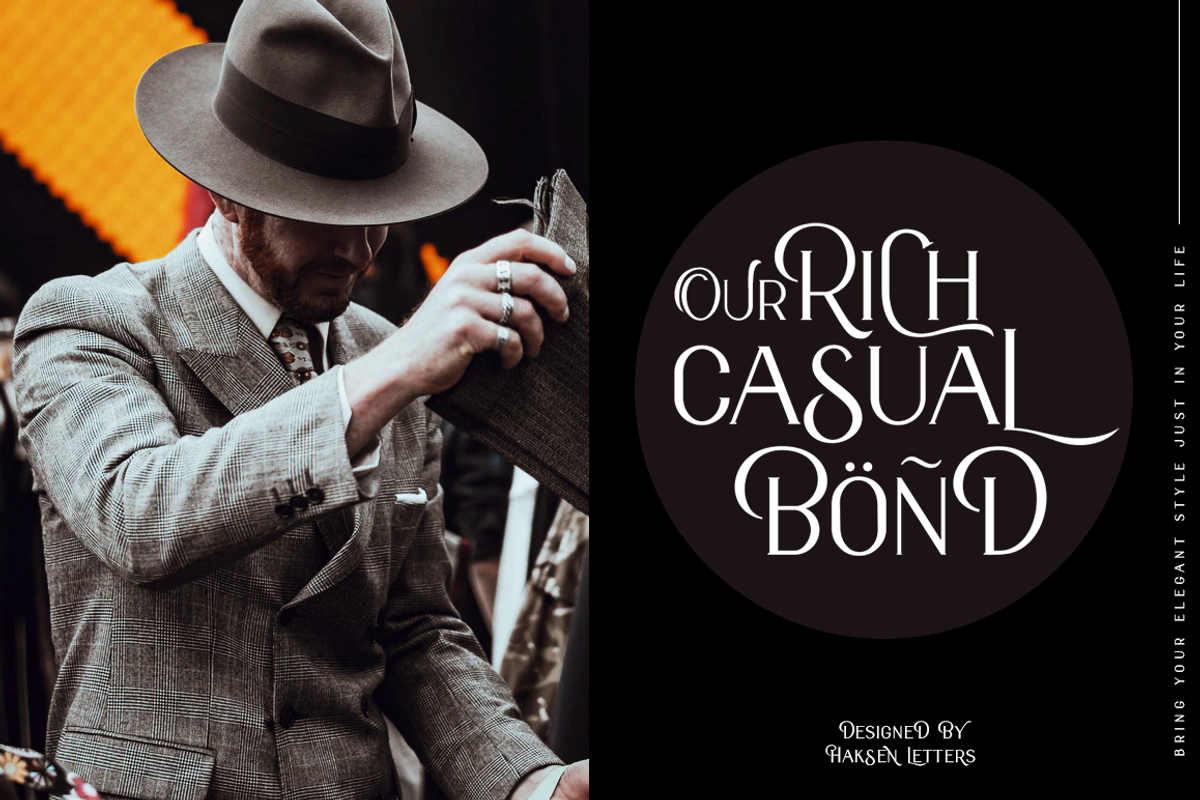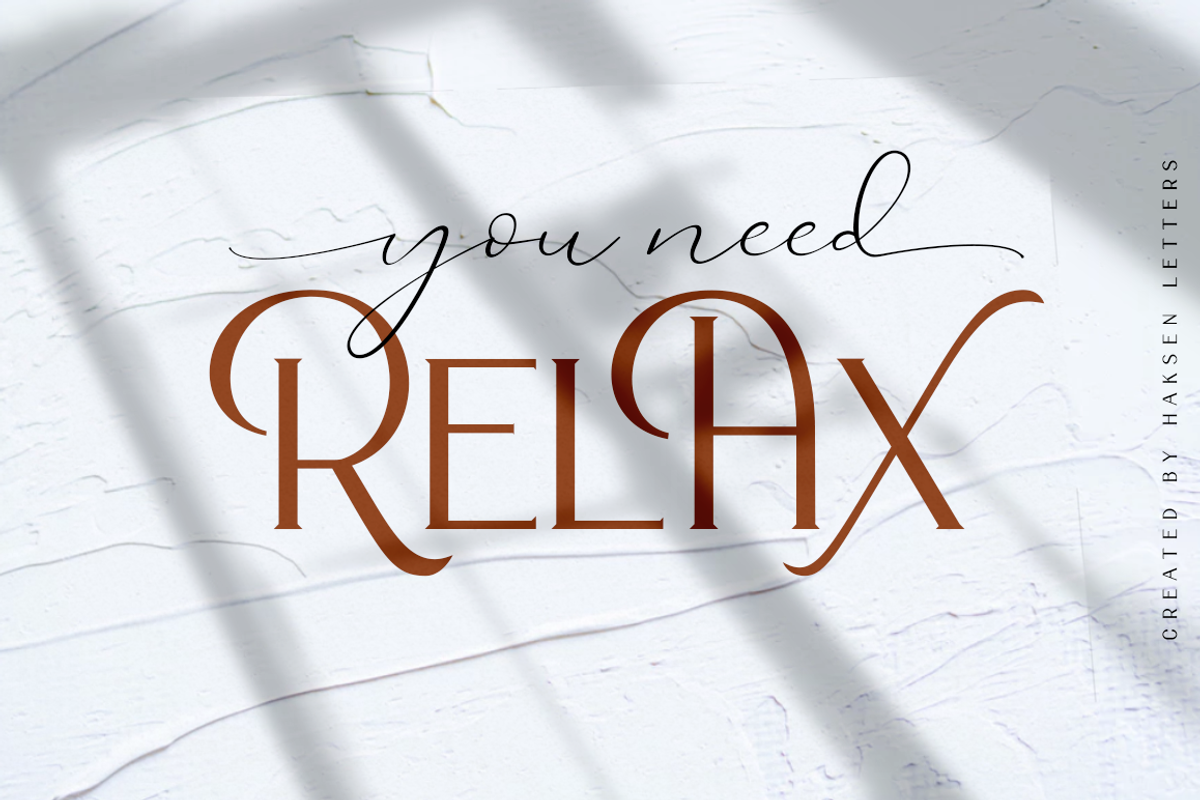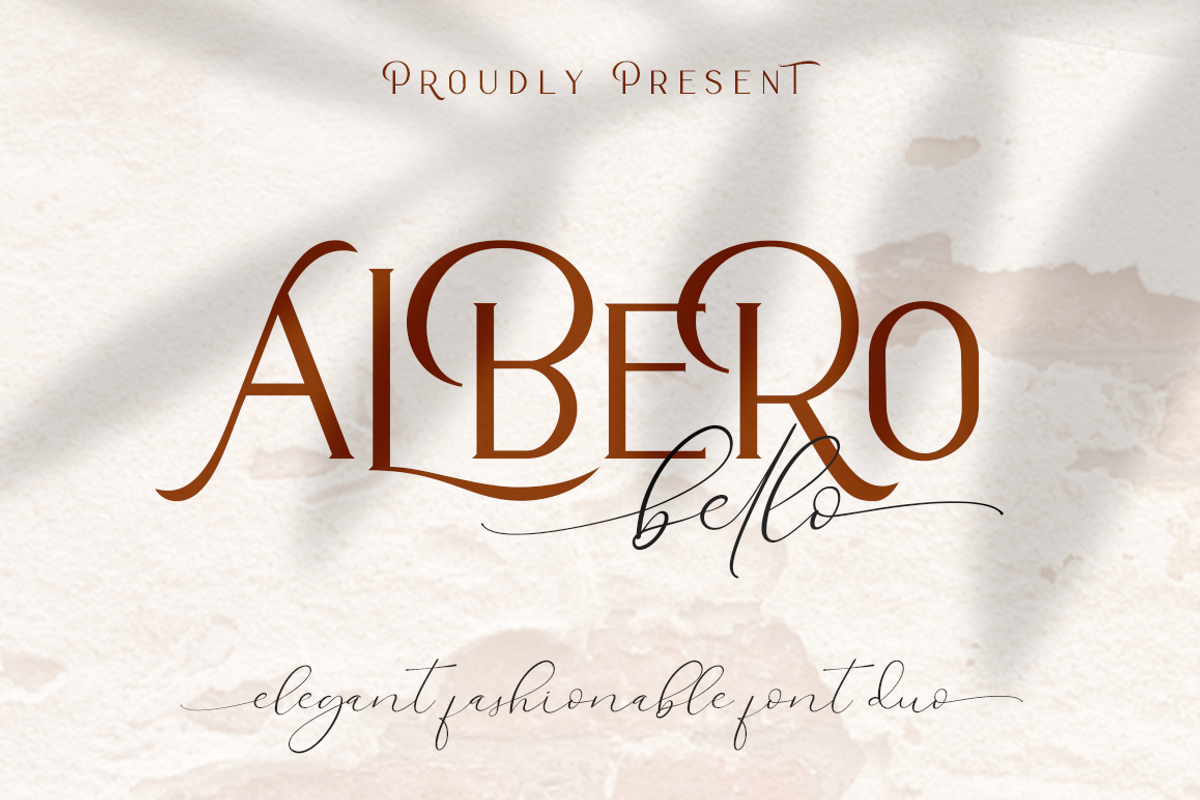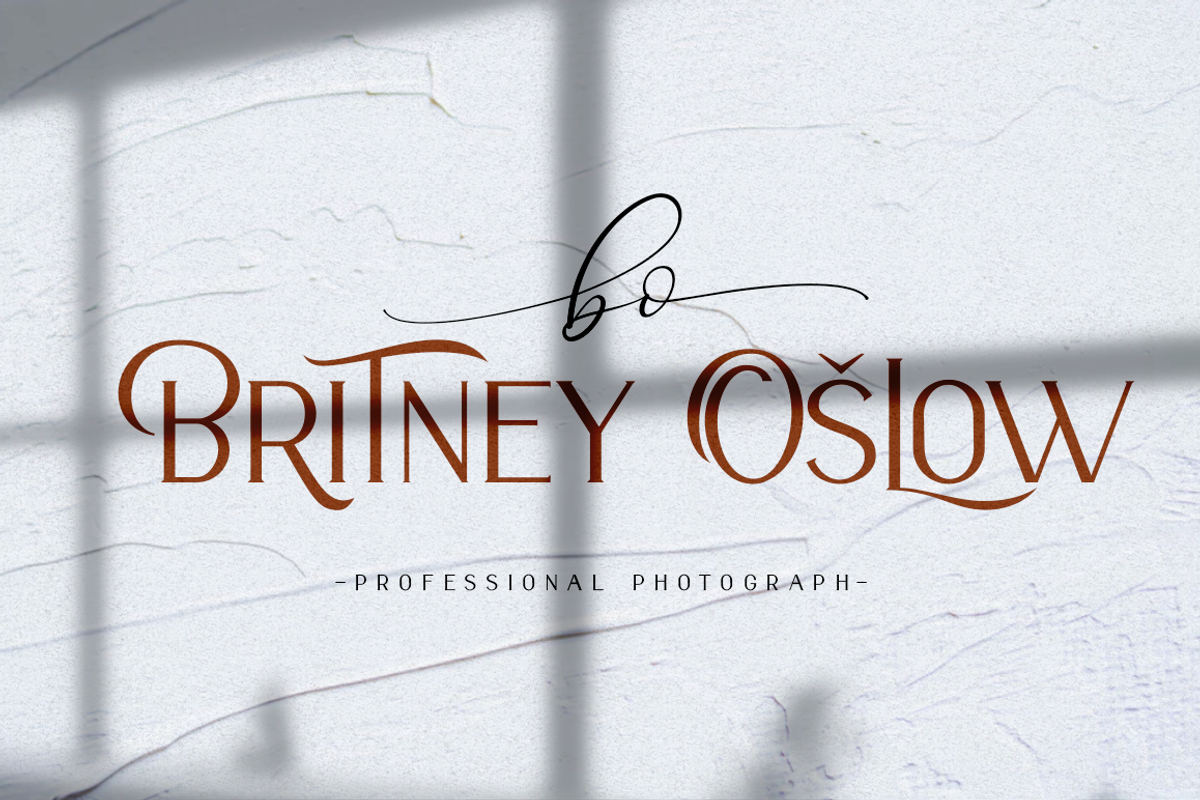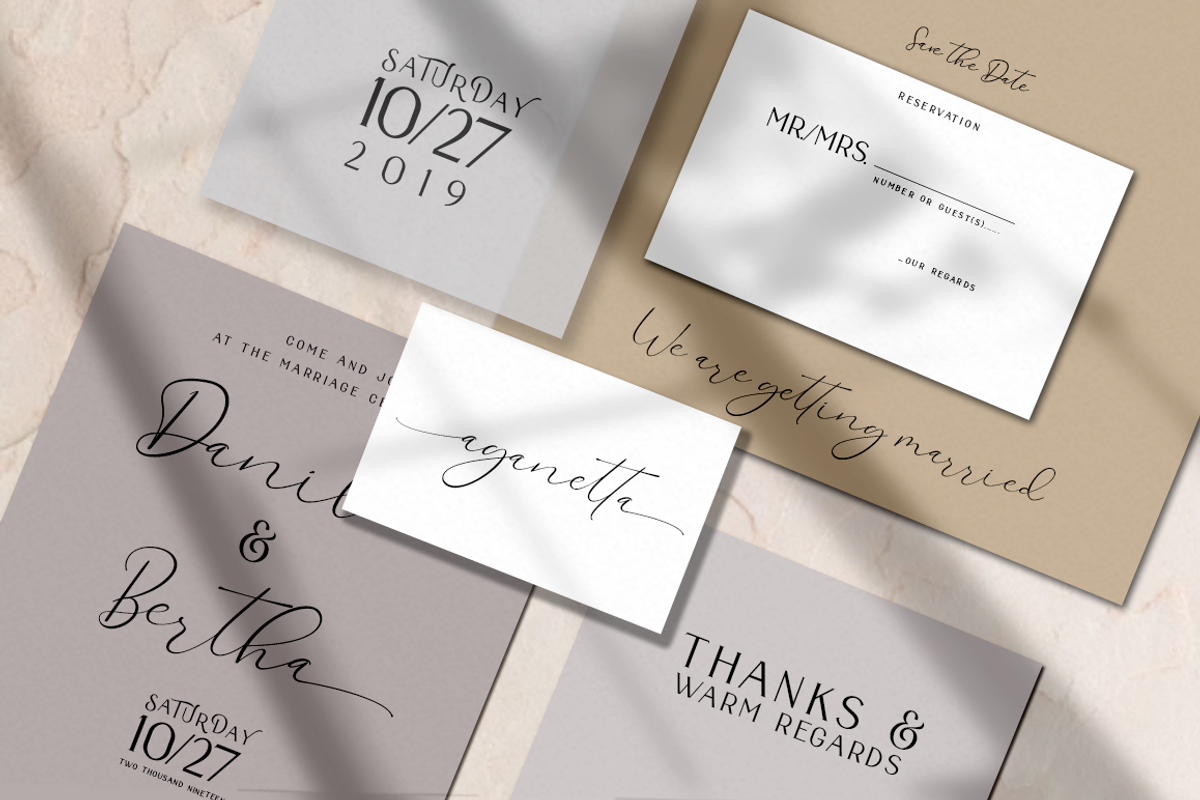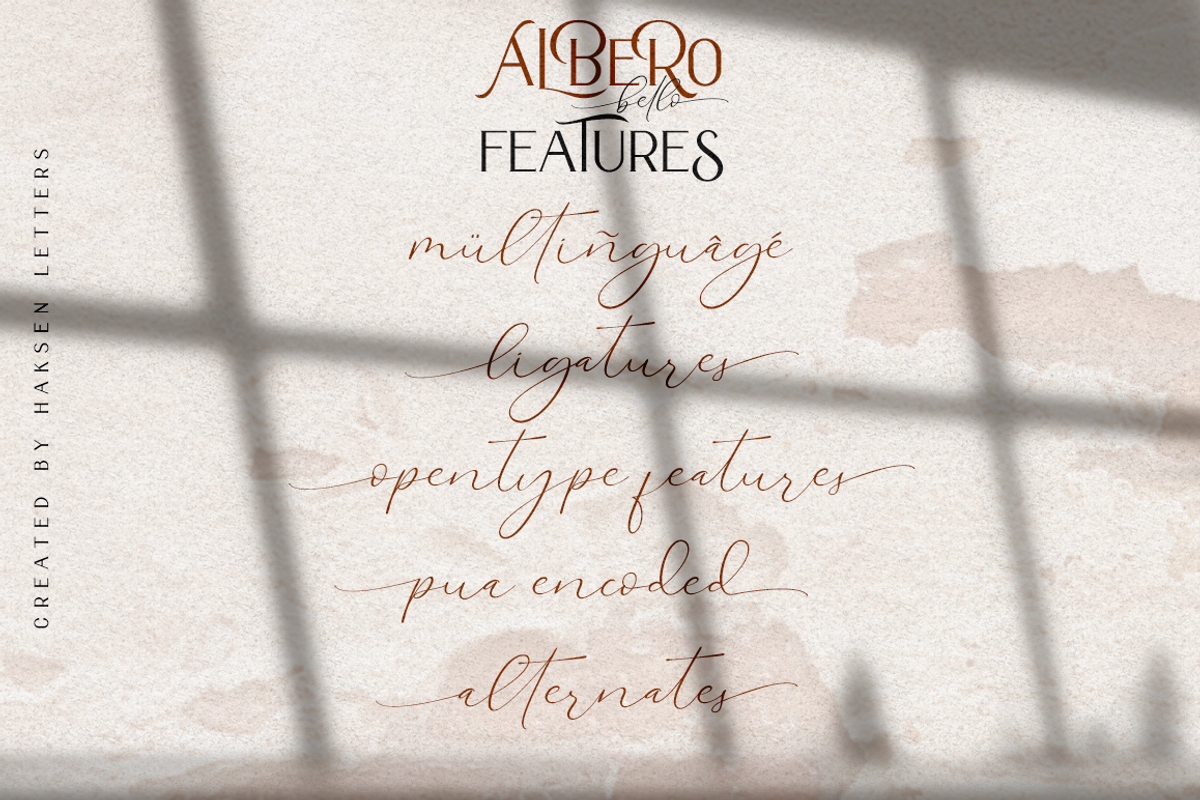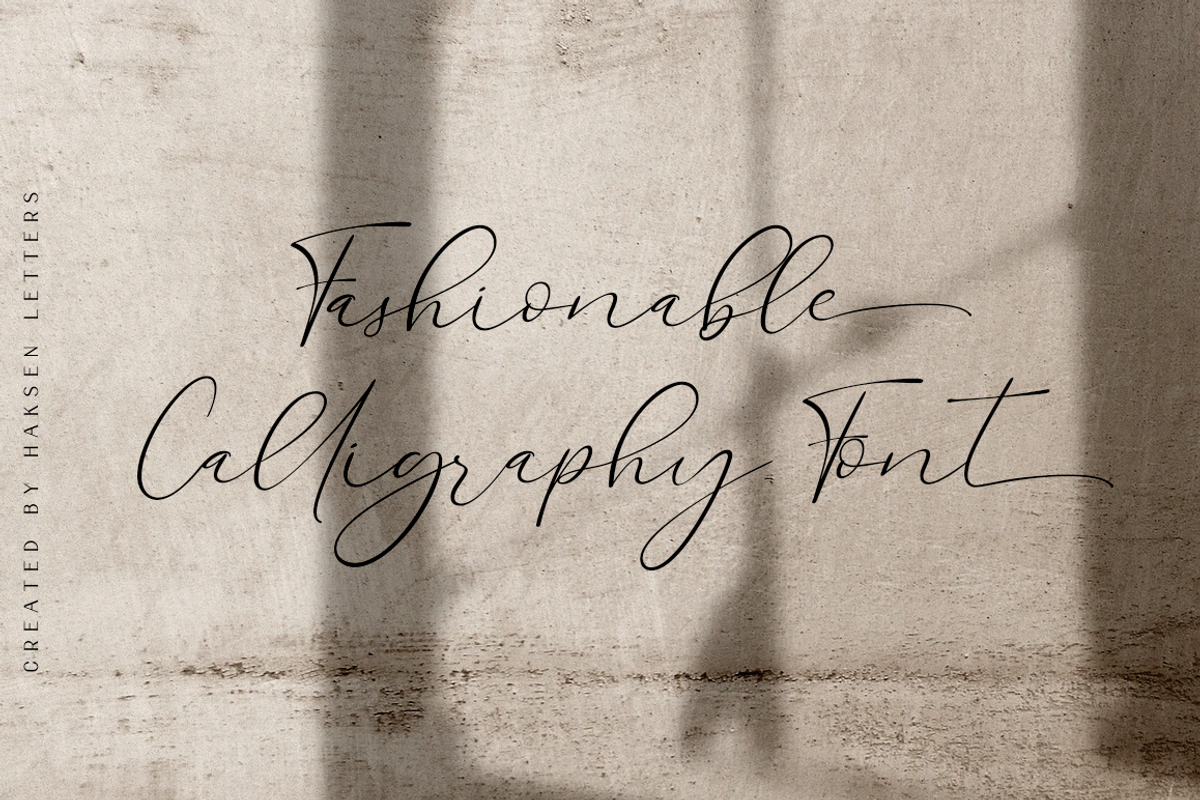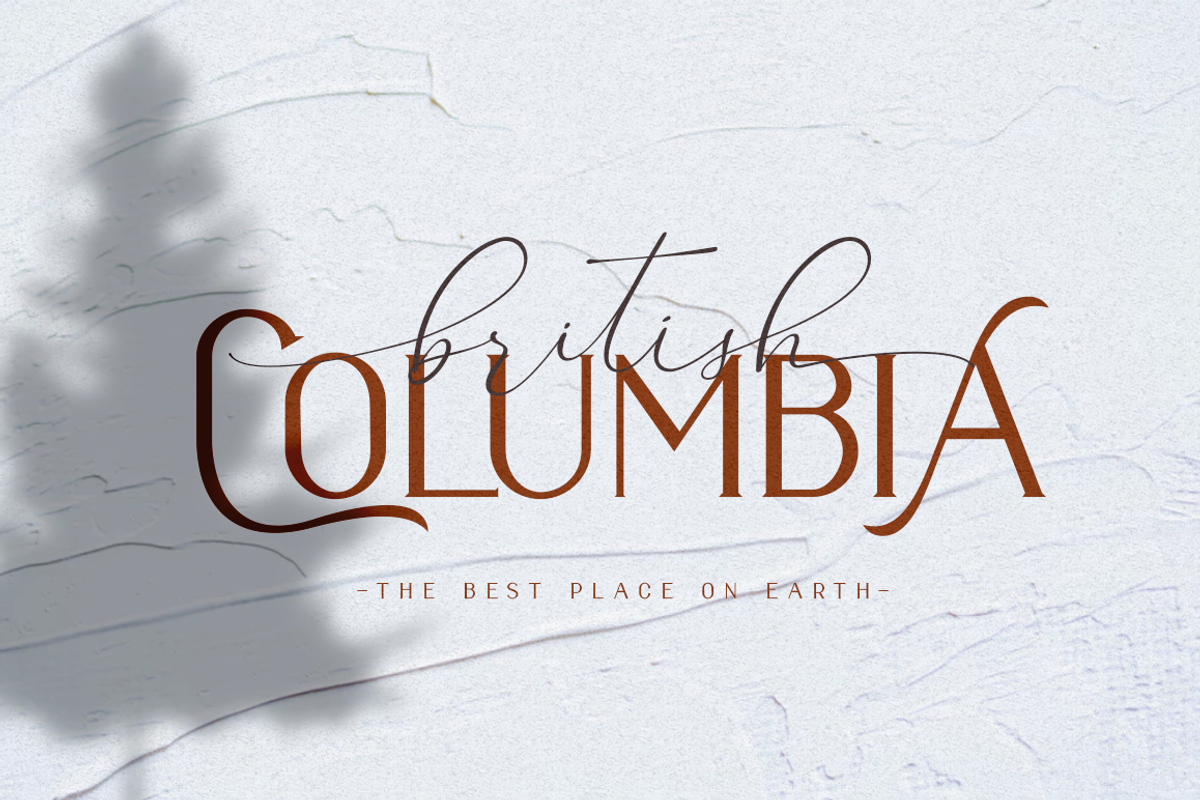
Alberobello // Fashionable Font Duo
Introduce Elegant and modern font duo in Alberobello the stylish modern and natural fonts combination with casual chic flair. These are perfect for branding, wedding invites and cards, and more option for your requirement.
Alberobello include two font styles with full set of gorgeous lowercase for script and elegant uppercase letters for serif, numerals, a large range of punctuation and ligatures. All lowercase of script include begining and ending alternates, giving realistic hand-lettered style.